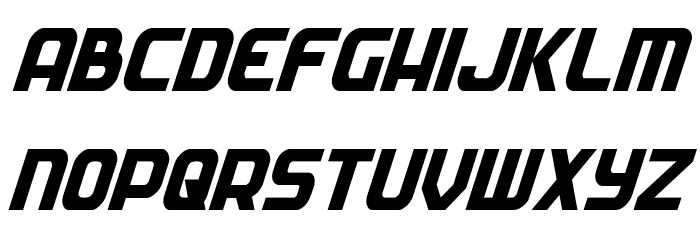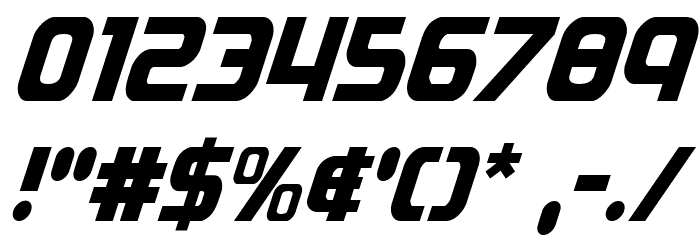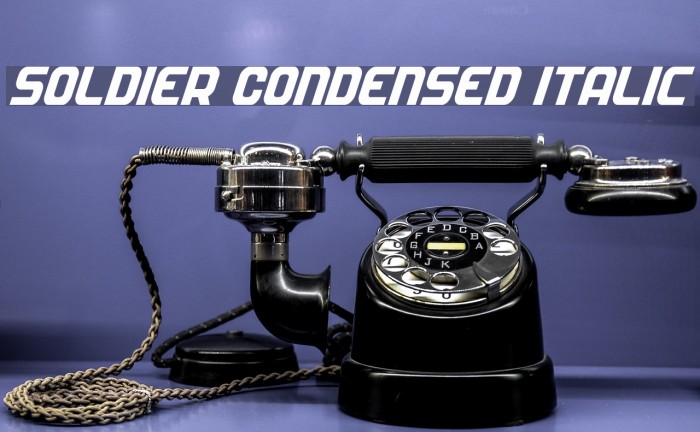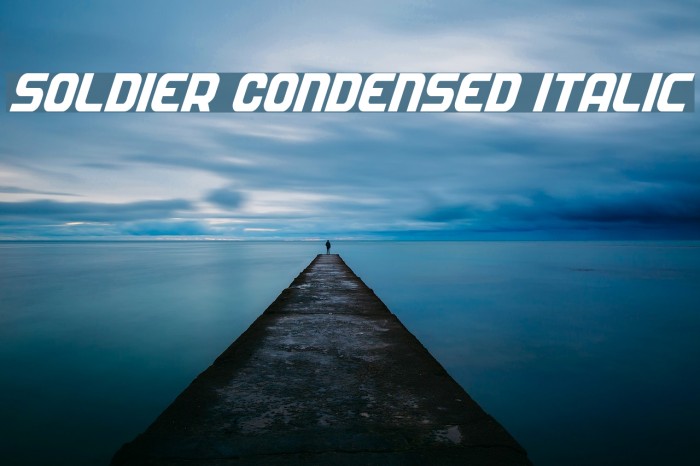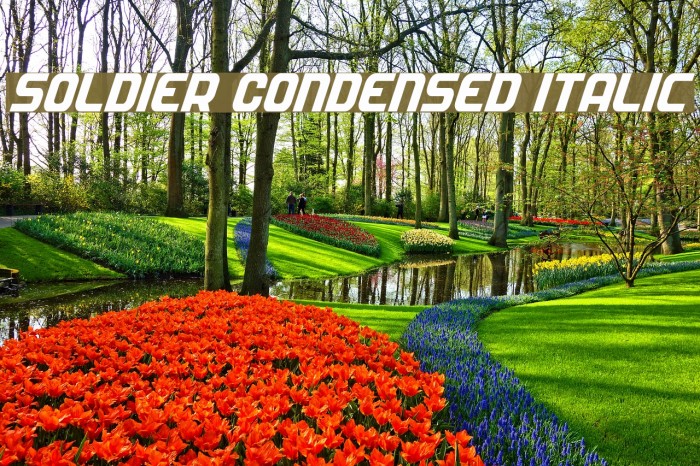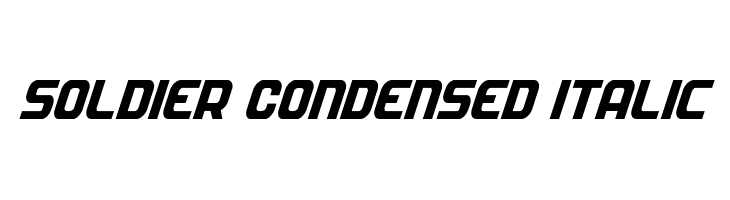
Soldier Condensed Italic Font
This font features a bold and dynamic style with a condensed and italicized form, giving it a strong and assertive appearance. The characters are tightly spaced, enhancing its compact look. The strokes are thick and uniform, providing a consistent and powerful visual impact. Its slanted design adds a sense of motion and energy, making it suitable for attention-grabbing headlines and impactful designs. The overall style is modern and assertive, perfect for projects that require a bold statement.
A bold, condensed, and italicized font with a modern and dynamic style.
- Font: Soldier Condensed Italic
- Weight: Condensed Italic
- Proposed Projects: Ideal for sports branding, action movie posters, dynamic advertisements, and bold headlines.
- Category: Sans-Serif
- Character Spacing: Tight